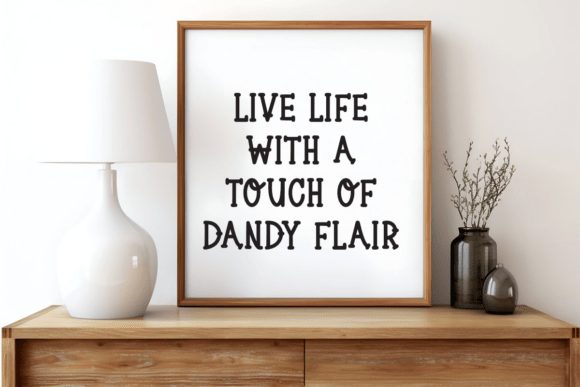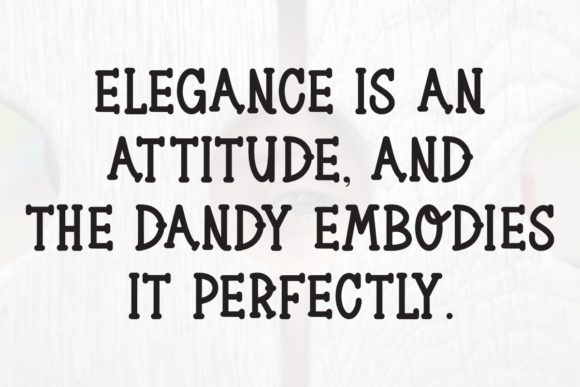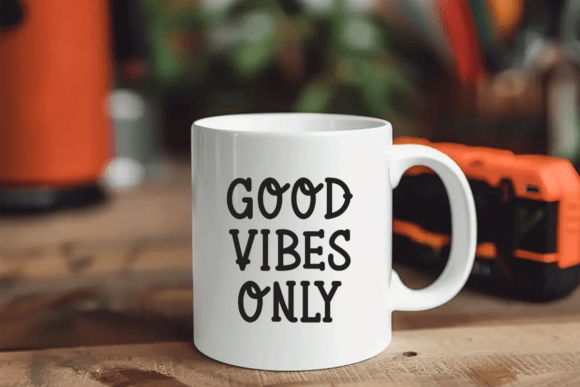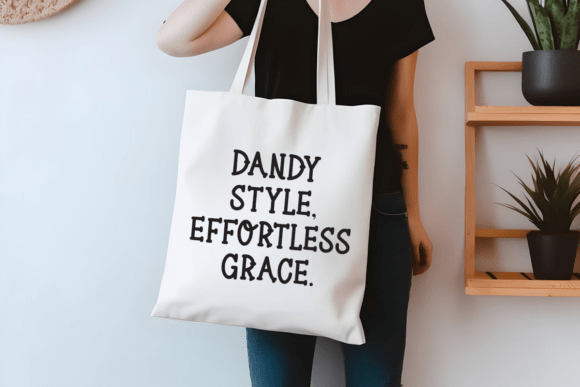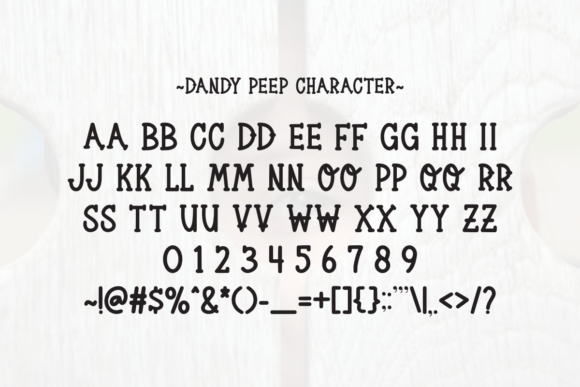
Dandy Peep Font: The Ultimate Choice for Fun and Playful Designs
Are you looking for a font that can add a dash of fun and playfulness to your designs? Look no further than the Dandy Peep font! This quirky and cheerful slab serif font is full of energy and charm, making it perfect for a wide range of design projects. In this article, we’ll take a closer look at the Dandy Peep font, its features, and how you can use it to bring a smile to your designs.
What is Dandy Peep Font?
Dandy Peep is a slab serif font that boasts playful proportions and chunky slab ends. Its bold and eye-catching design makes it an excellent choice for designs that need to stand out. The font’s quirky and cheerful personality is perfect for storybooks, children’s games, posters, and any other design project that requires a dose of fun.
Key Features of Dandy Peep Font
- Playful Proportions: Dandy Peep’s playful proportions make it a joy to use in a variety of design projects. Its unique letterforms are designed to bring a smile to your face.
- Chunky Slab Ends: The font’s chunky slab ends add a touch of whimsy and playfulness to your designs.
- Bold and Eye-Catching: Dandy Peep is a bold and eye-catching font that’s perfect for designs that need to stand out.
- Kid-Friendly Vibe: The font’s playful and cheerful personality makes it perfect for designs aimed at children, such as storybooks and children’s games.
Use Cases for Dandy Peep Font
Dandy Peep is a versatile font that can be used in a wide range of design projects. Here are some use cases to get you started:
- Storybooks: Add a touch of whimsy and playfulness to your storybooks with Dandy Peep.
- Children’s Games: The font’s kid-friendly vibe makes it perfect for children’s games, puzzles, and activity sheets.
- Posters: Use Dandy Peep to create eye-catching posters for kids’ events, parties, and activities.
- Crafting and DIY Projects: Add a playful touch to your crafting and DIY projects, such as greeting cards, invitations, and scrapbooking.
Why Choose Dandy Peep Font?
So why choose Dandy Peep font for your design projects? Here are just a few reasons:
- Unique Personality: Dandy Peep has a unique and playful personality that’s sure to bring a smile to your face.
- Versatility: The font can be used in a wide range of design projects, from storybooks to posters.
- Easy to Read: Despite its playful design, Dandy Peep is easy to read, making it perfect for body text and headings.
Tips for Using Dandy Peep Font
Here are some tips for using Dandy Peep font in your design projects:
- Pair with Other Fonts: Pair Dandy Peep with other fonts to create a unique and playful typography combination.
- Experiment with Colors: Have fun with colors! Dandy Peep looks great in bright, bold colors that match its playful personality.
- Use for Headings and Titles: Use Dandy Peep for headings and titles to add a touch of whimsy and playfulness to your designs.
In conclusion, Dandy Peep font is a quirky and cheerful slab serif font that’s perfect for designs that need a dose of fun. Its playful proportions, chunky slab ends, and bold design make it an excellent choice for storybooks, children’s games, posters, and any other design project that requires a kid-friendly vibe. With its versatility, unique personality, and ease of use, Dandy Peep is sure to become a favorite font in your design arsenal.